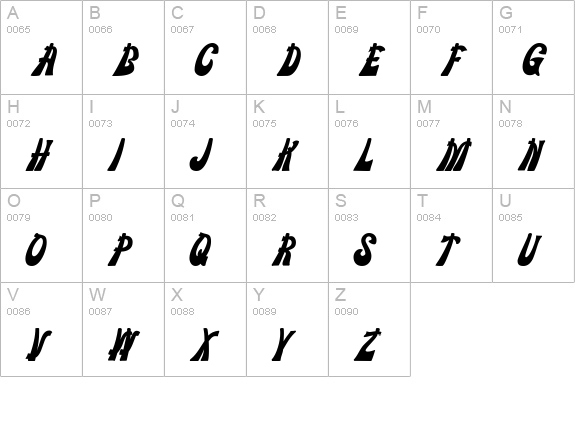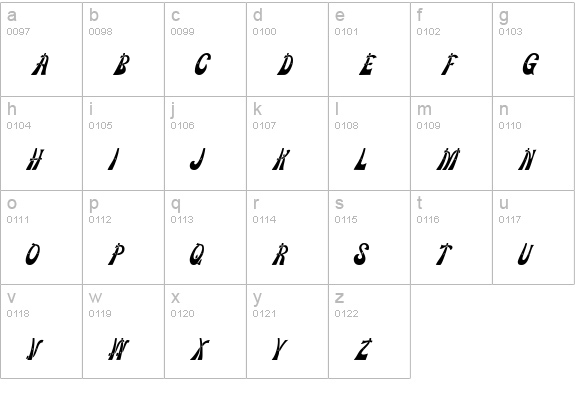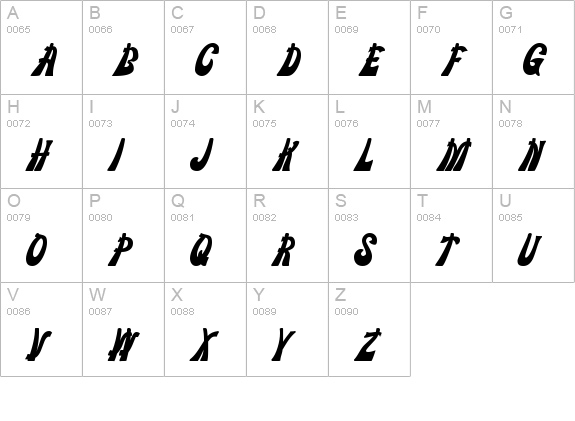
ChipperDisplay Bold is a strong, high-contrast variant in the ChipperDisplay typeface family \xE2\x80\x94 well suited to headlines, attention-grabbing titles, and strong calls-to-action.
ChipperDisplay Bold font is a bold and eye-catching typeface that exudes confidence and modernity. With its strong and dynamic letterforms, this font is perfect for making a statement in headlines, posters, and branding materials. The bold strokes and sharp edges of ChipperDisplay Bold demand attention and convey a sense of strength and authority. The best part? ChipperDisplay Bold font is available for free download at FontsMarket.com. So you can easily add this versatile and impactful font to your design arsenal without breaking the bank. Don't miss out on the opportunity to enhance your projects with the bold and striking ChipperDisplay Bold font - download it now and make your designs stand out!